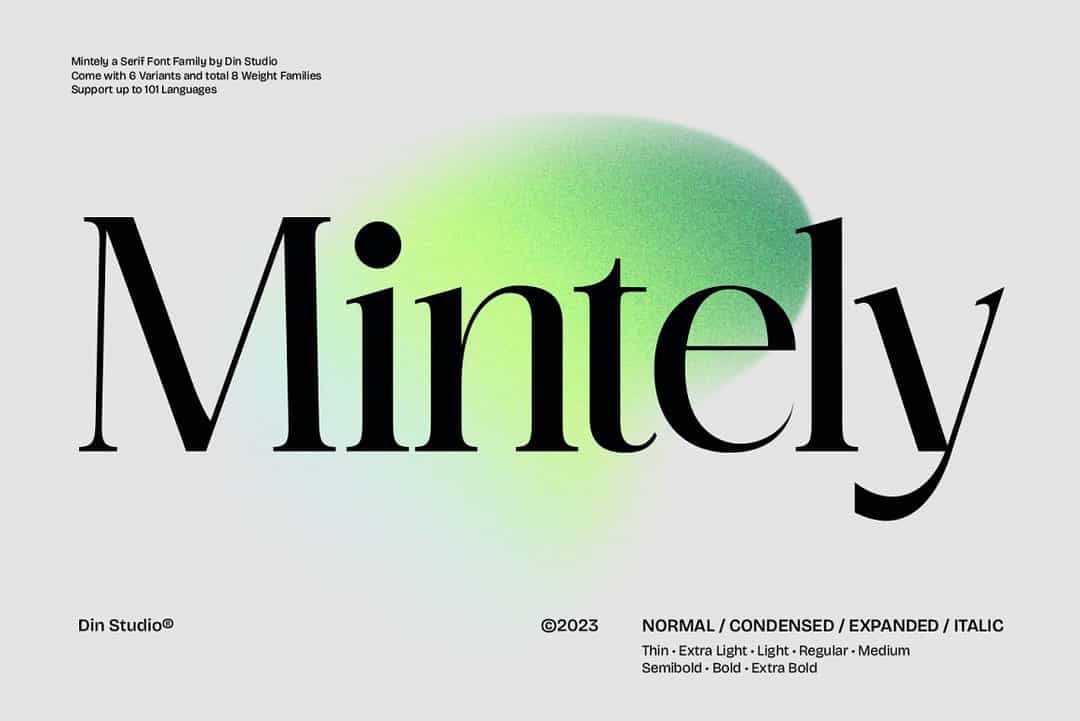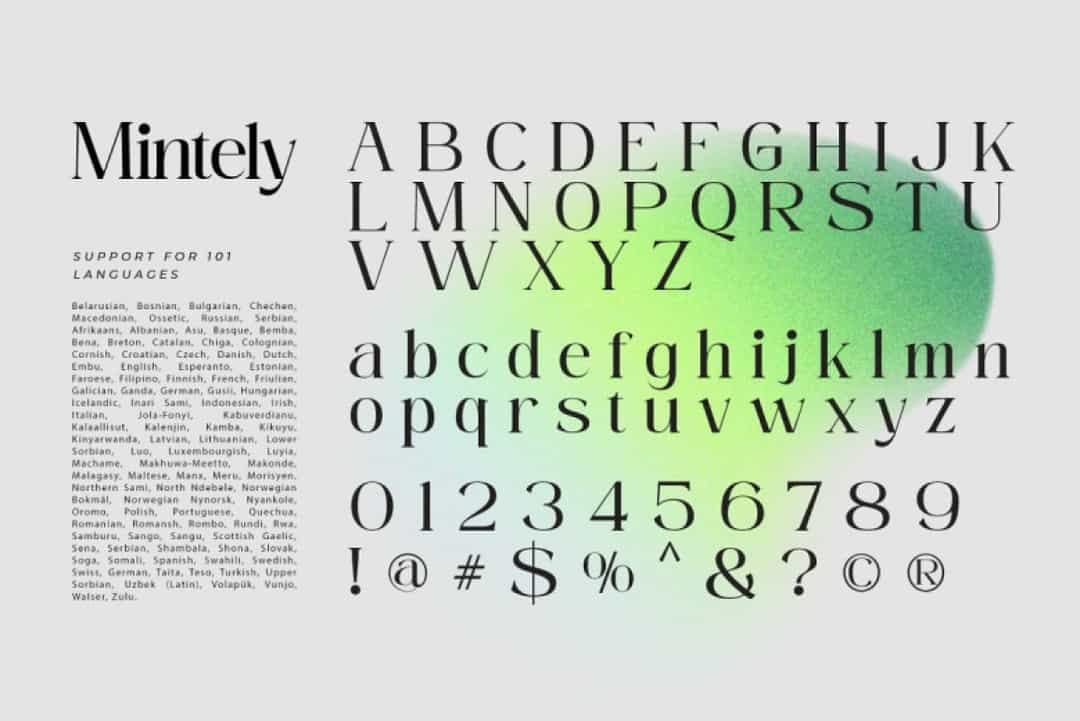
Mintely is an attractive and adaptable serif font family designed to elevate the quality of your fonts to new levels of sophistication and readability. Offering six style variations and eight weight options, this font gives designers options for use across a range of design tasks. Blending classic with contemporary elements, it provides timeless style which adapts well across various contexts and situations.